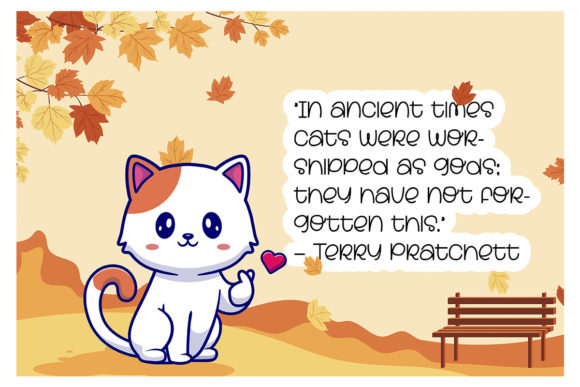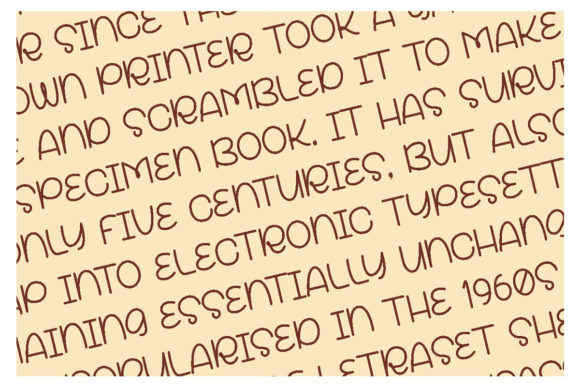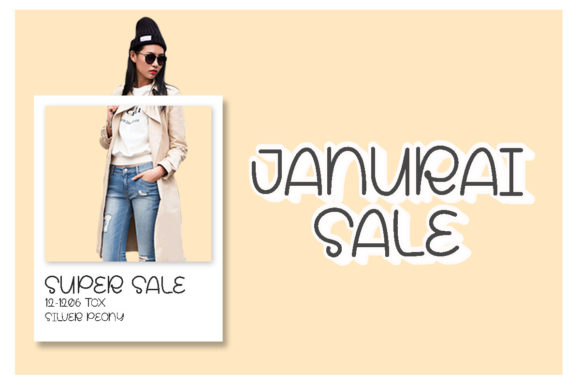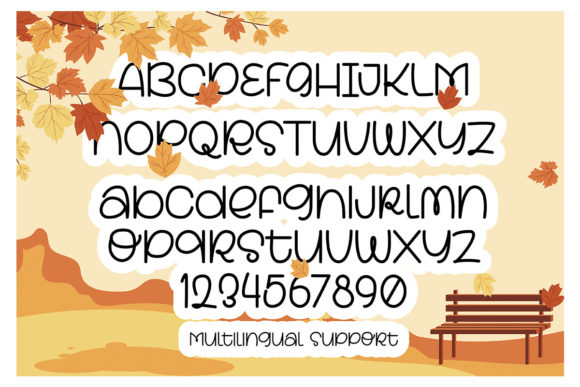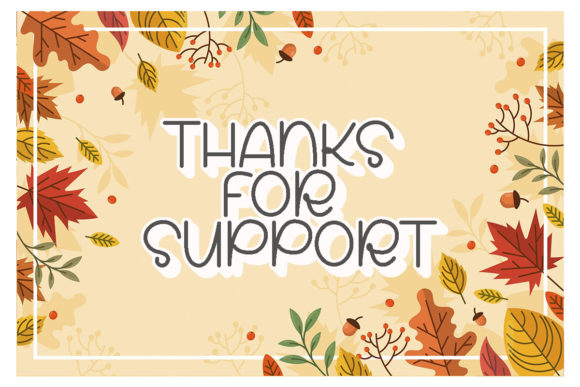
Introduction to Hello Elsha Font
Hello Elsha is a cute and round-lettered handwritten font.
Whether youโre using it for crafting, digital design, presentations, or greeting card making, it is the perfect font to use in your creative designs .
Key Features of Hello Elsha Font
Why Choose Hello Elsha Font?
Hello Elsha Font offers exceptional quality and versatility, making it a valuable addition to your design toolkit. Whether you’re creating for personal projects or commercial use, Hello Elsha Font delivers professional results.